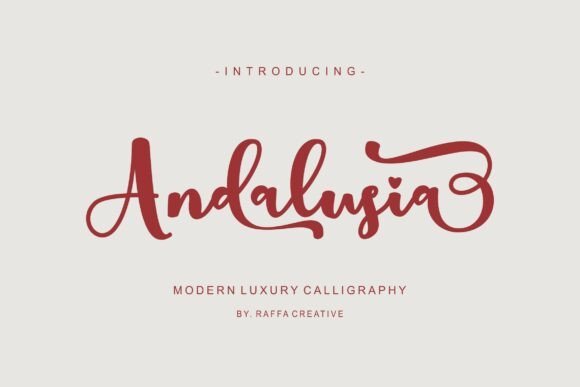
The Elegance of Handwritten Design: Unveiling the Andalusia Font
As a designer, there’s nothing quite like the thrill of bringing a new project to life. You’re brainstorming ideas, sketching out concepts, and pouring your heart and soul into every detail. And then, it happens – that perfect combination of style and personality that makes your design truly special. But what sets it apart? For many designers, the answer lies in the Andalusia Font, a stunning modern calligraphy font that brings a touch of elegance and sophistication to any project.
With its flowing curves and refined details, the Andalusia Font is the perfect choice for adding a personal yet stylish touch to your designs. Whether you’re creating wedding invitations, branding, or social media posts, this font is sure to elevate your work and leave a lasting impression. Its timeless charm and natural handwritten feel make it a valuable asset for any designer looking to take their creative work to the next level.
- Unique Characteristics: Elegant, cursive script with a touch of Spanish flair, suitable for creative and elegant designs
- Font Style: Script, cursive
Review: Andalusia Font
I recently had the chance to work with the Andalusia font, and I must say, it’s a mixed bag. Let’s start with what works well: ✨ The font has a beautiful, elegant feel to it, perfect for creating a luxurious and sophisticated atmosphere. The Andalusia font is particularly well-suited for use in branding, advertising, and editorial design.
The font’s high x-height and refined lines make it easy to read, even at smaller sizes. Additionally, the font’s wide range of weights and styles allows for a great deal of flexibility in design.
- ⚠️ The Andalusia font can feel a bit too ornate for some designs, making it difficult to read at very small sizes or in environments with a lot of noise.
- ⚠️ The font may not be the best choice for digital displays, as the ornate details can get lost in the digital rendering.
- ⚠️ The font’s high x-height can sometimes make it feel a bit too ‘dense’ or ‘heavy’ in certain contexts.
Overall, I’d say the Andalusia font is a solid choice for designers looking to create a high-end, sophisticated aesthetic. However, it’s not a one-size-fits-all solution, and designers should be mindful of the potential limitations when working with this font.
The Andalusia font is well-suited for:
- Creating elegant and sophisticated designs for wedding invitations, party